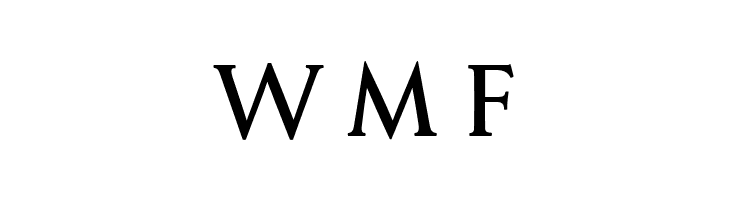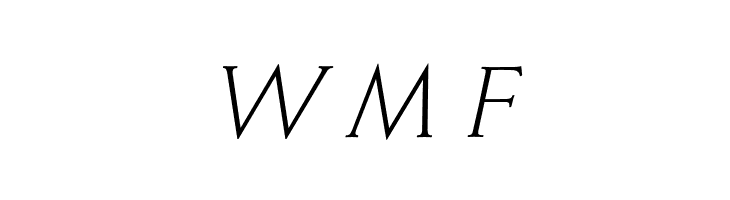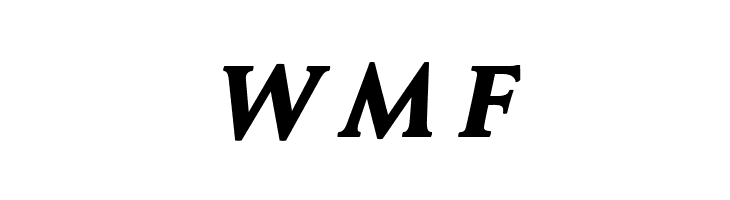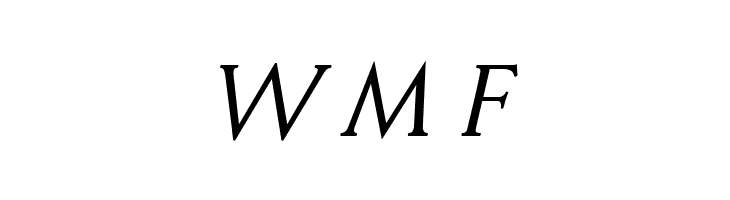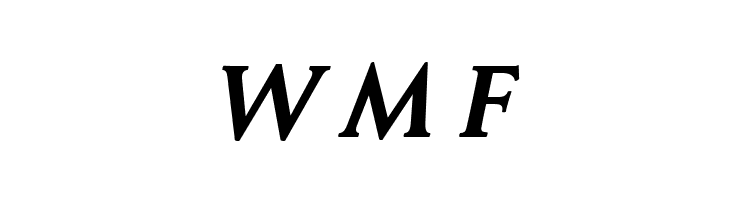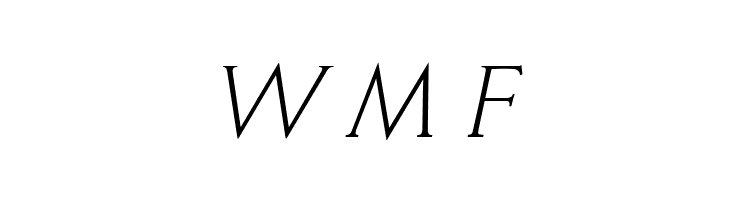
A classic serif font with modern elegance and balanced proportions.
A bold serif font with a classic and authoritative style.
An elegant serif font with a classic italic slant and moderate stroke contrast.
A classic, oblique serif font with Renaissance elegance and moderate contrast.
A classic serif font with elegant, Renaissance-inspired design and moderate contrast.
A classic serif font with pronounced serifs and moderate contrast, ideal for formal use.
Elegant serif font with italic slant and moderate contrast.
A refined serif typeface with a slight italic slant and light weight.
A bold, italic serif font with a classic yet dynamic style.
An elegant serif font with a classic italic style and refined appearance.
A light, elegant serif font with a slight italic slant and classic charm.
Elegant serif font with bold, italicized characters and moderate contrast.